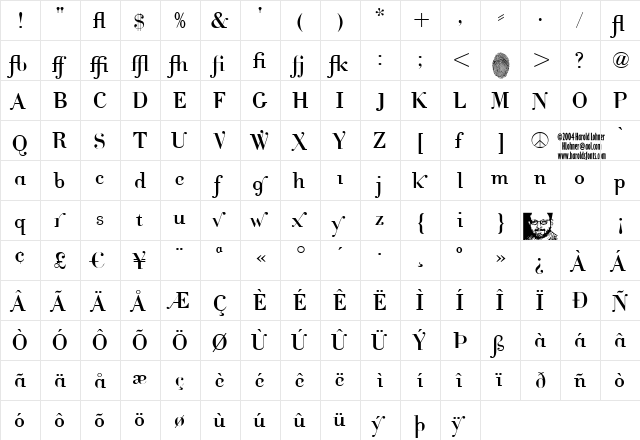
CantabileAlternate Regular Font Preview
CantabileAlternate Regular
CantabileAlternate Regular Font Details
Design Context for CantabileAlternate Typeface
CantabileAlternate is a composed and adaptable typeface that performs quietly and consistently across a wide range of design contexts.